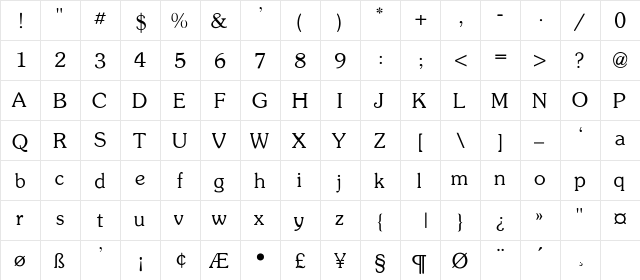
Porter Thin Regular Font Preview
Porter Thin Regular
Design Context for Porter Thin Typeface
Porter Thin is a composed and adaptable typeface that performs quietly and consistently across a wide range of design contexts. The delicate stroke weight brings airiness and refinement to layouts.